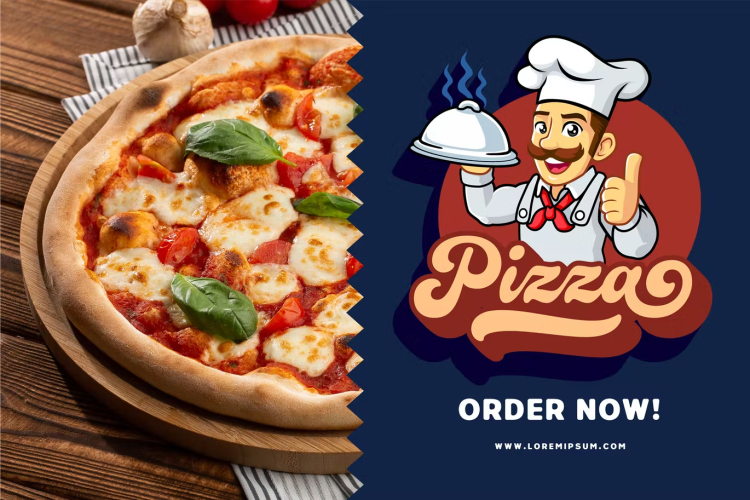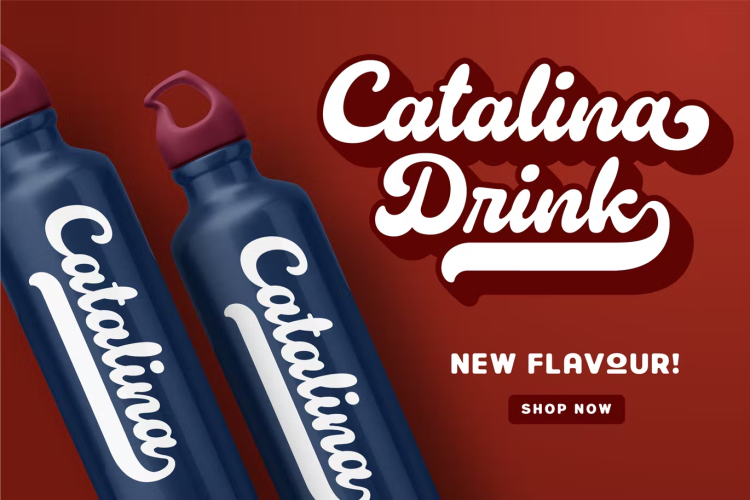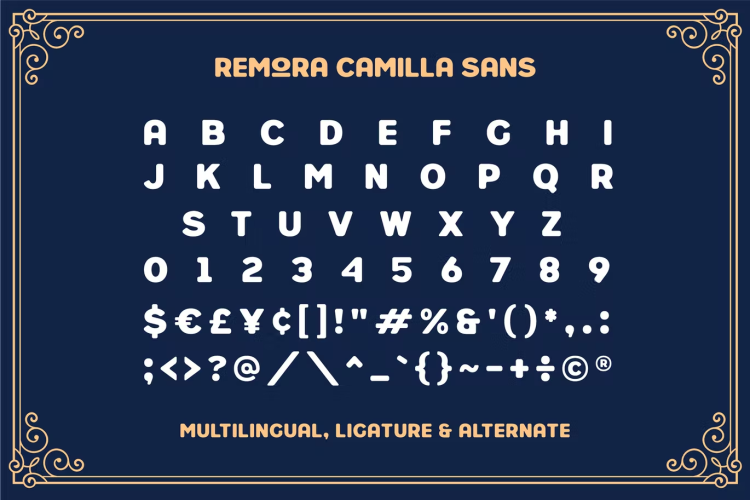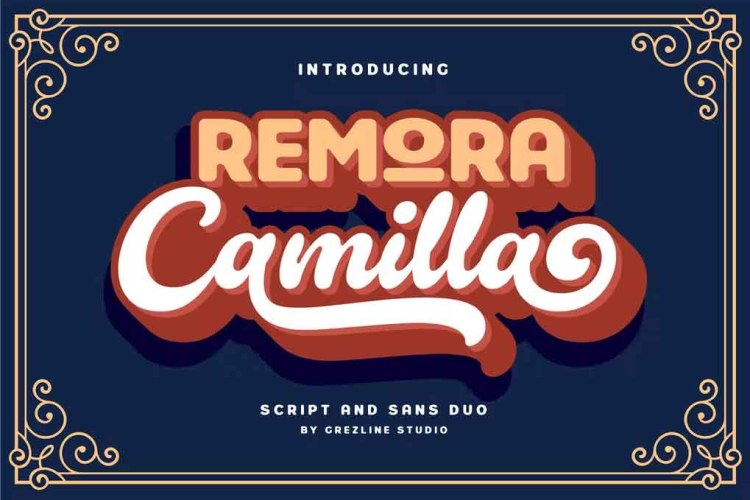
Remora Camilla Display Font
Remora Camilla is a display script and unique sans font pair with a charming retro personality. They also have strong and bold characteristics. This font will be an appealing asset to your fonts’ library, as they have the potential to enhance any design project. Remora Camilla is perfect for headings, covers, posters, logos, quotes, product packaging, merchandise, social media and much more! Combine them to make your creation more spectacular!
Where Remora Camilla Display Font works best
Remora Camilla Display Font keeps its shape at 14 and 16 pixels, which is where interface text actually lives. Numbers and capitals stay distinguishable in tables.
Presentations are read at a distance; a clean sans with a strong bold is the safest hierarchy you can build in a hurry.
Simple letterforms survive angles, glare and movement, so Remora Camilla Display Font suits door signs, menus boards and exhibition panels.
What kind of work does Remora Camilla Display Font suit?
It sits in the Sans Serif Fonts group and reads as bold, branding, display, retro. That makes it a candidate wherever those qualities help: headings, packaging, social graphics and brand work. Set it at the size you plan to use before deciding.